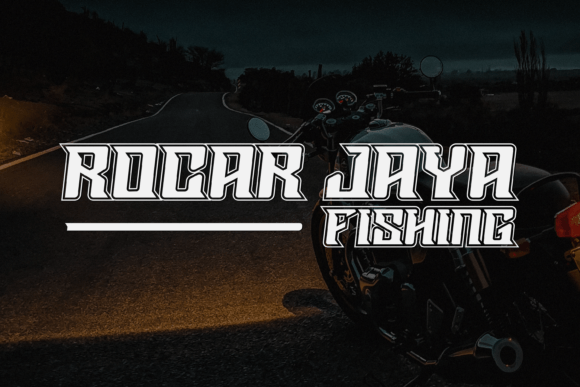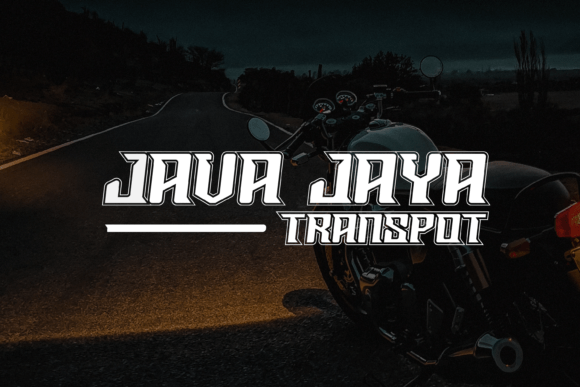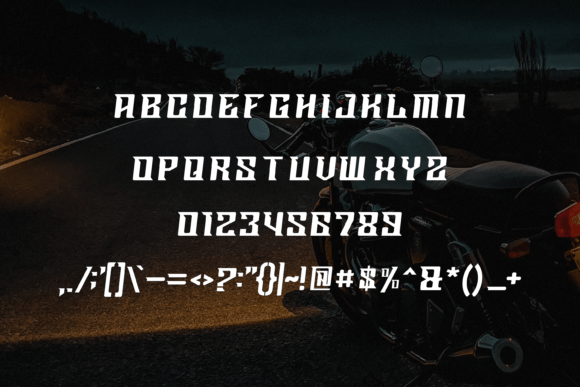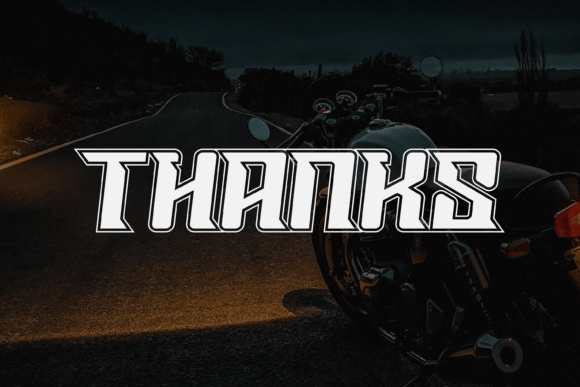
Wingcor Font
WINGCOR FONT SPECIMEN
Wingcor is a bold and unique slab serif font perfect for solemn and crazy creative ideas. Add it to labels, banners, flyers, business cards, branding materials, or more.